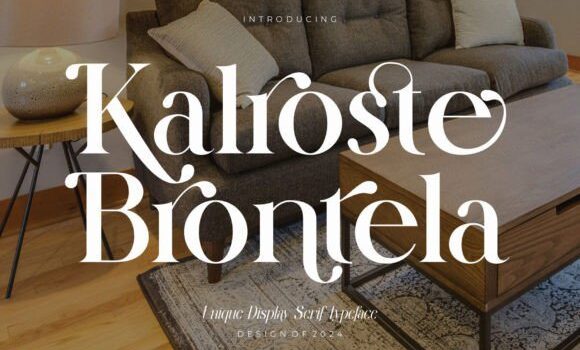
Kalroste Brontela Font – Free Download Introduction to Kalroste Brontela Font **Kalroste Brontela** Modern Display Serif Typeface inspired by the famous minimalist logo perfect for the purposes of designing templates, brochures, videos, advertising branding, logos, invitations, layout design, elegant crafting,